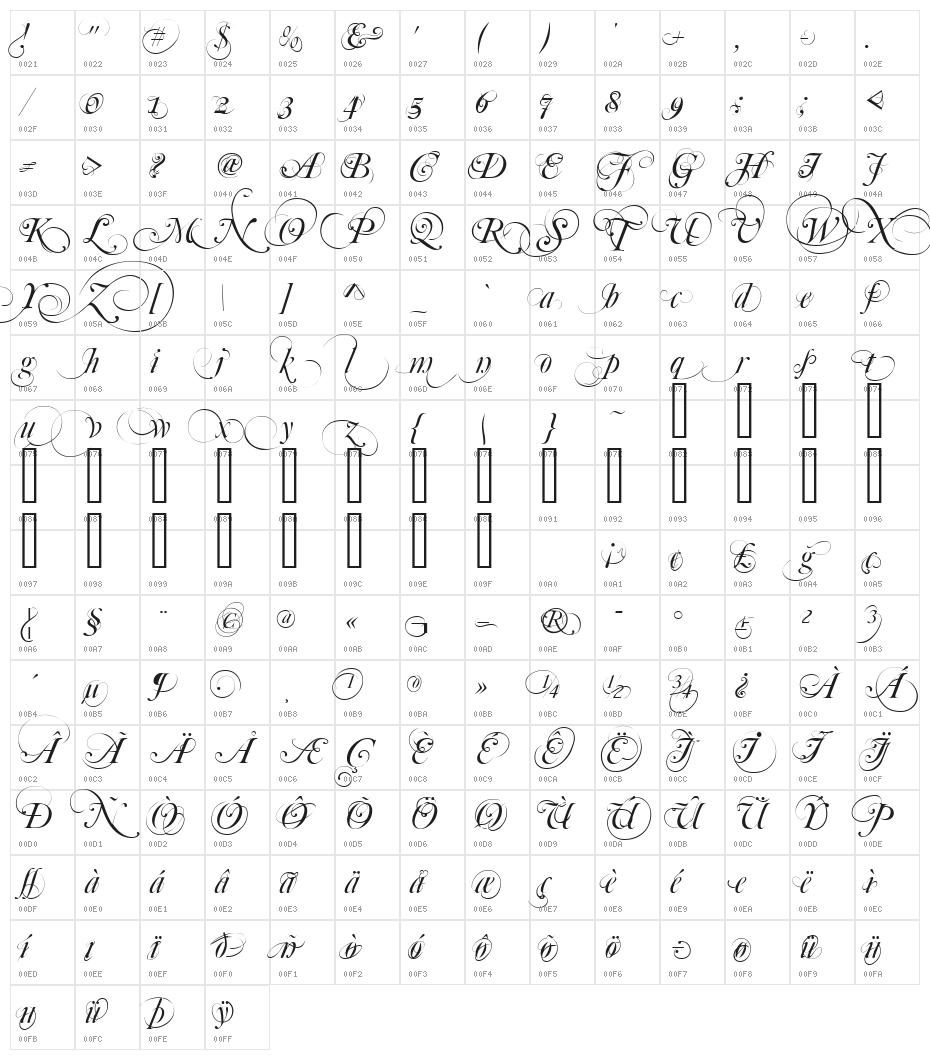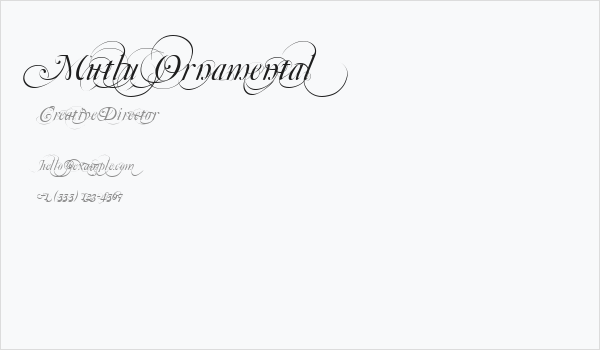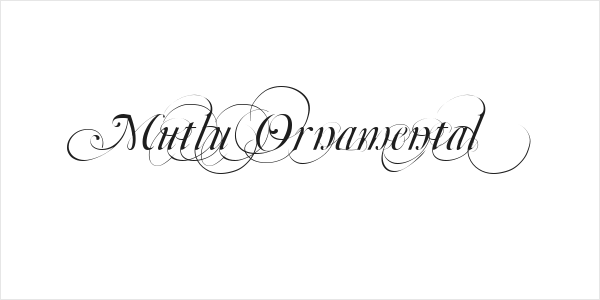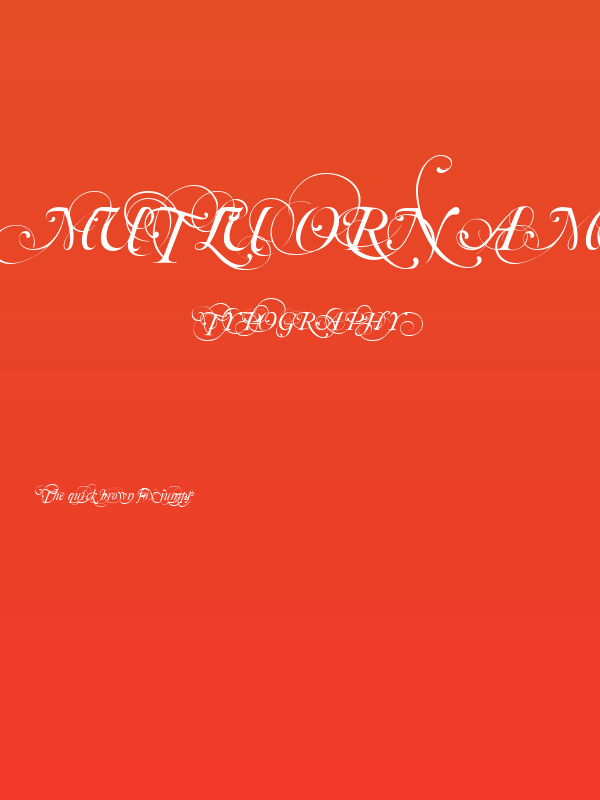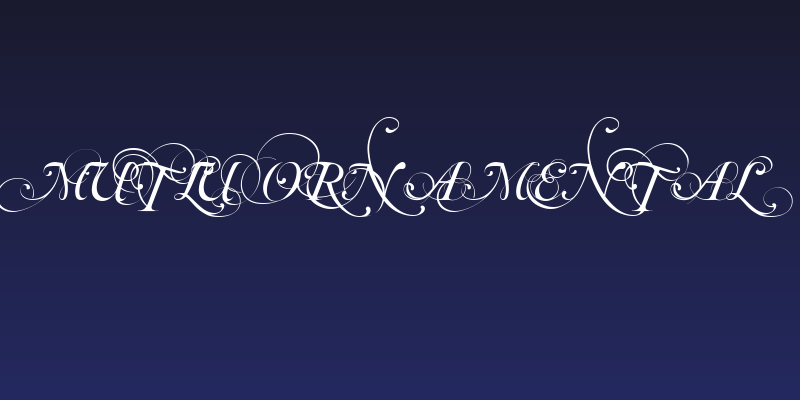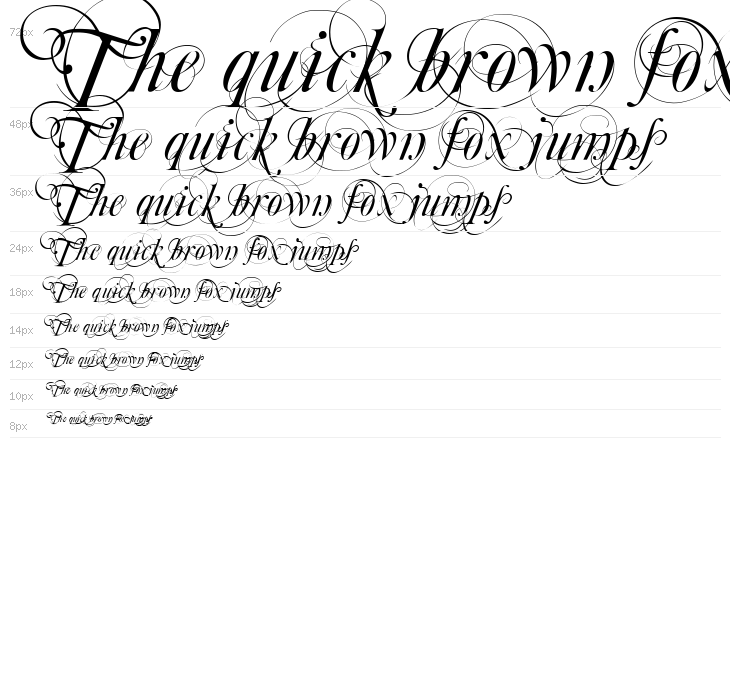
Mutlu Ornamental Font
Mutlu Ornamental Description
This font is a highly decorative and ornate script style, characterized by its elaborate swirls and flourishes that extend from the main strokes of each letter. The uppercase letters are particularly intricate, with loops and curls that create a sense of elegance and sophistication. The lowercase letters maintain a consistent style, with a flowing, cursive appearance that complements the uppercase set. Numbers and special characters are equally embellished, ensuring a cohesive look across all elements. The overall design is reminiscent of classic calligraphy, making it suitable for formal and artistic applications.
| Proposed Projects | Wedding invitations, luxury branding, certificates, artistic posters, and decorative headlines. |